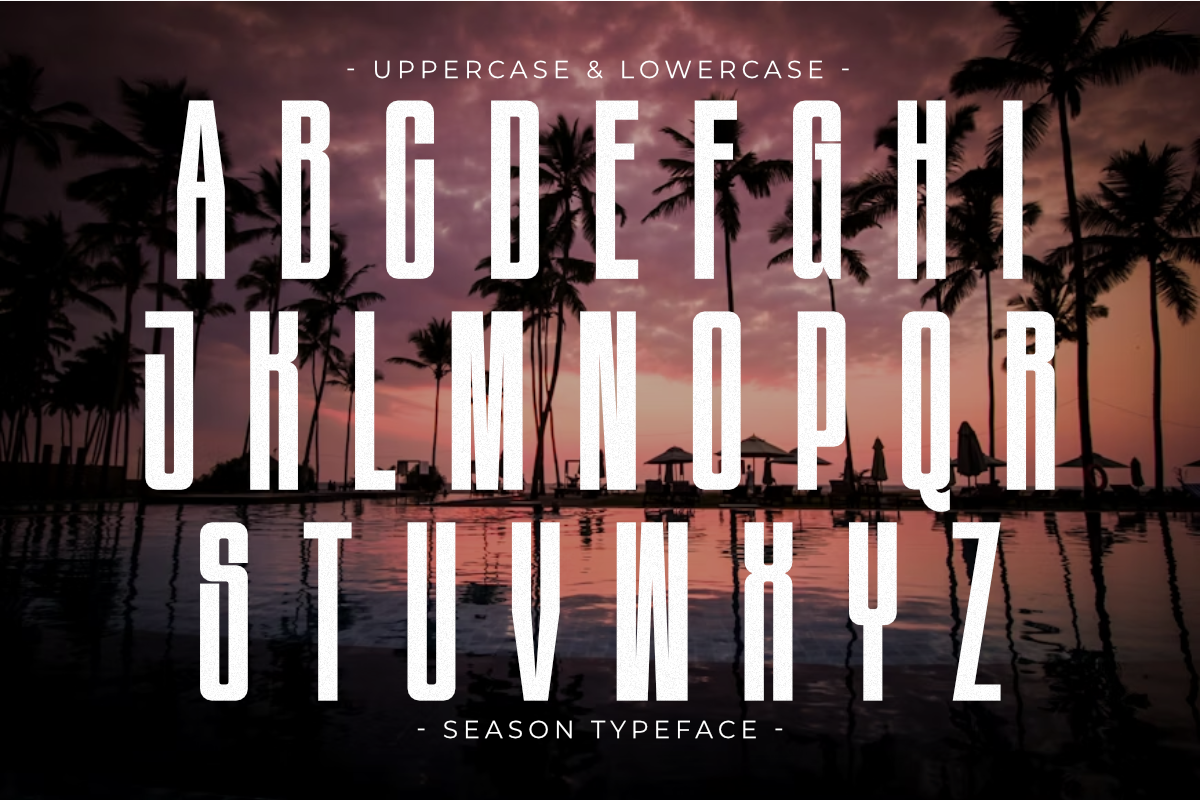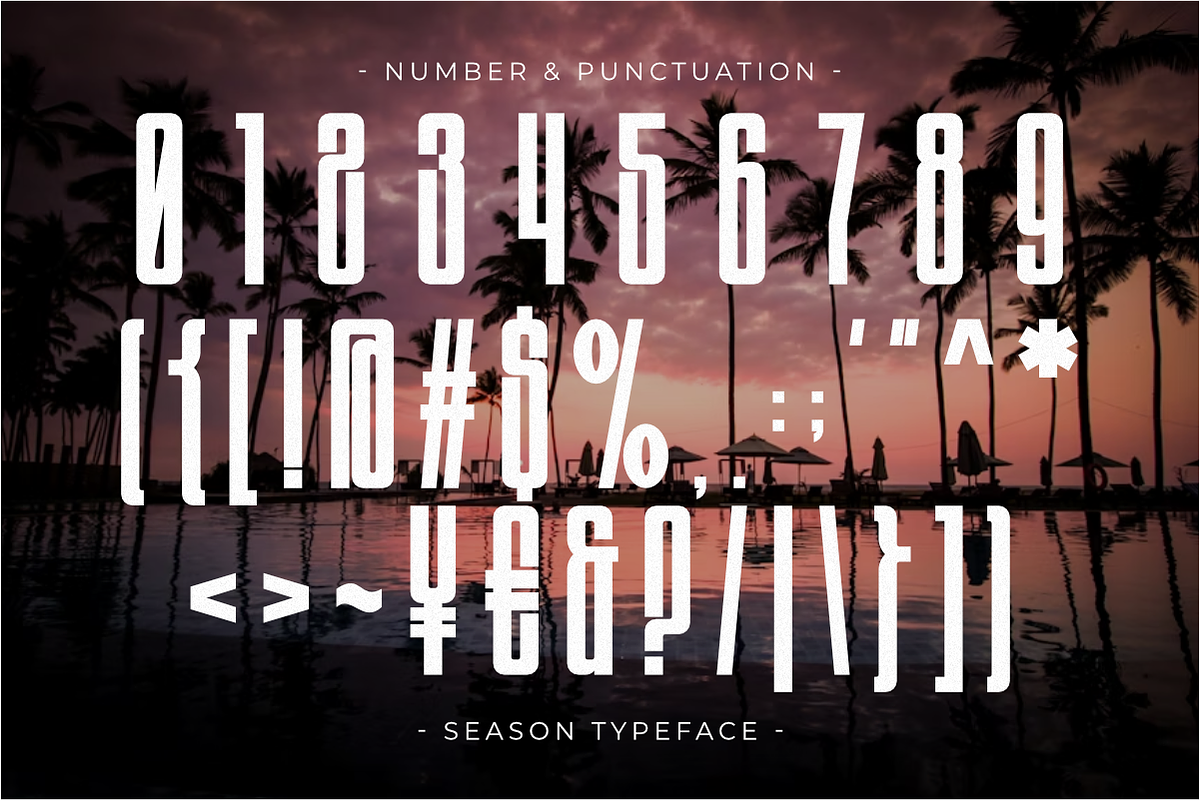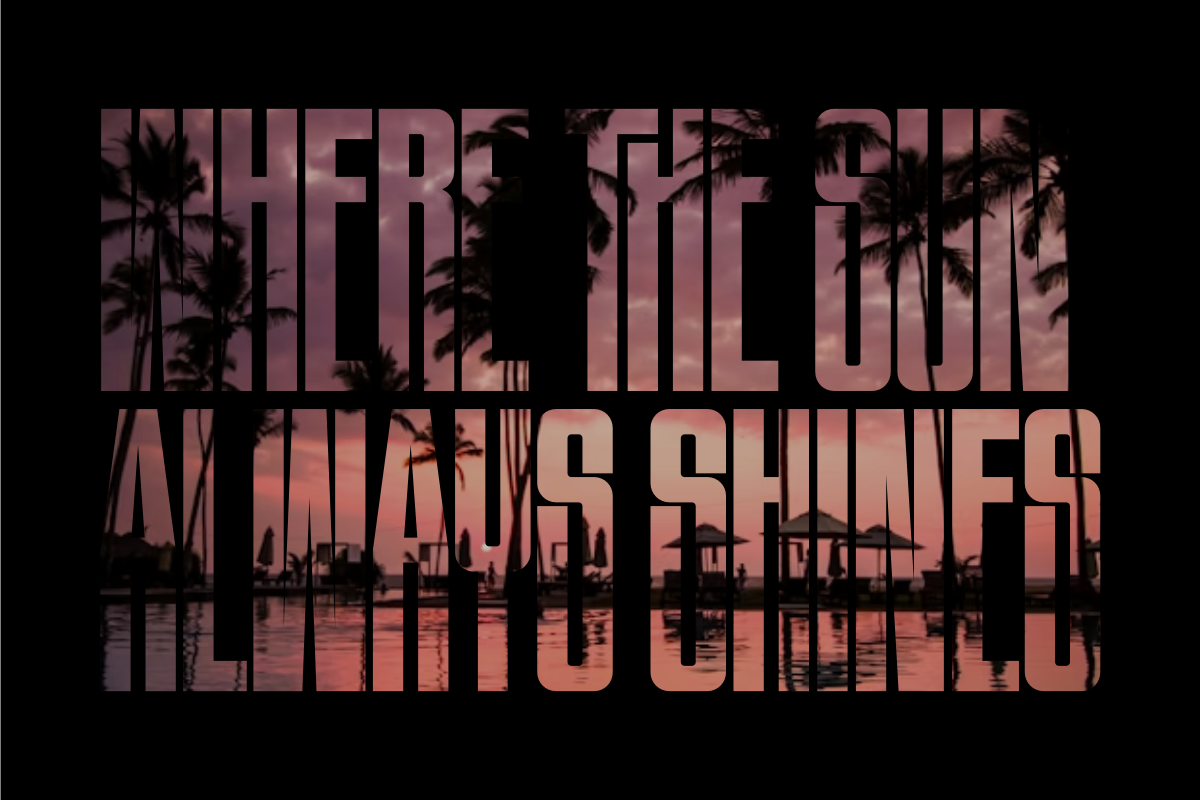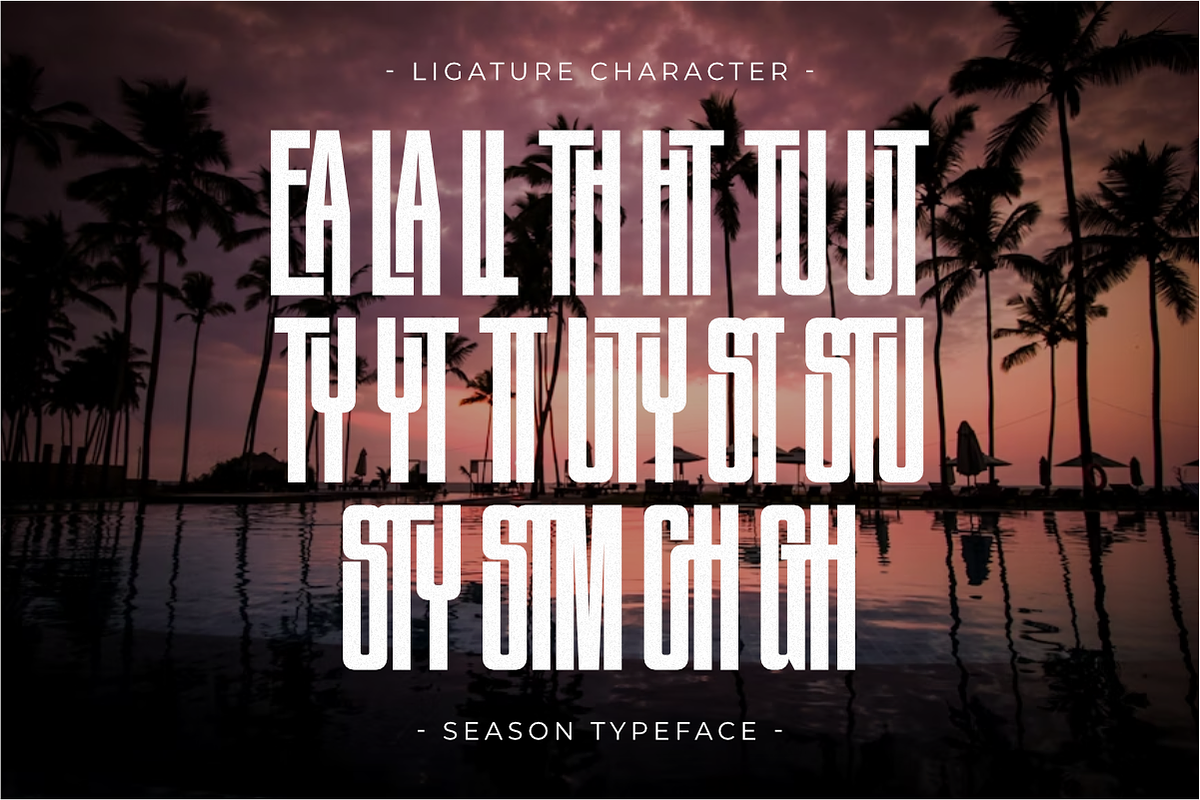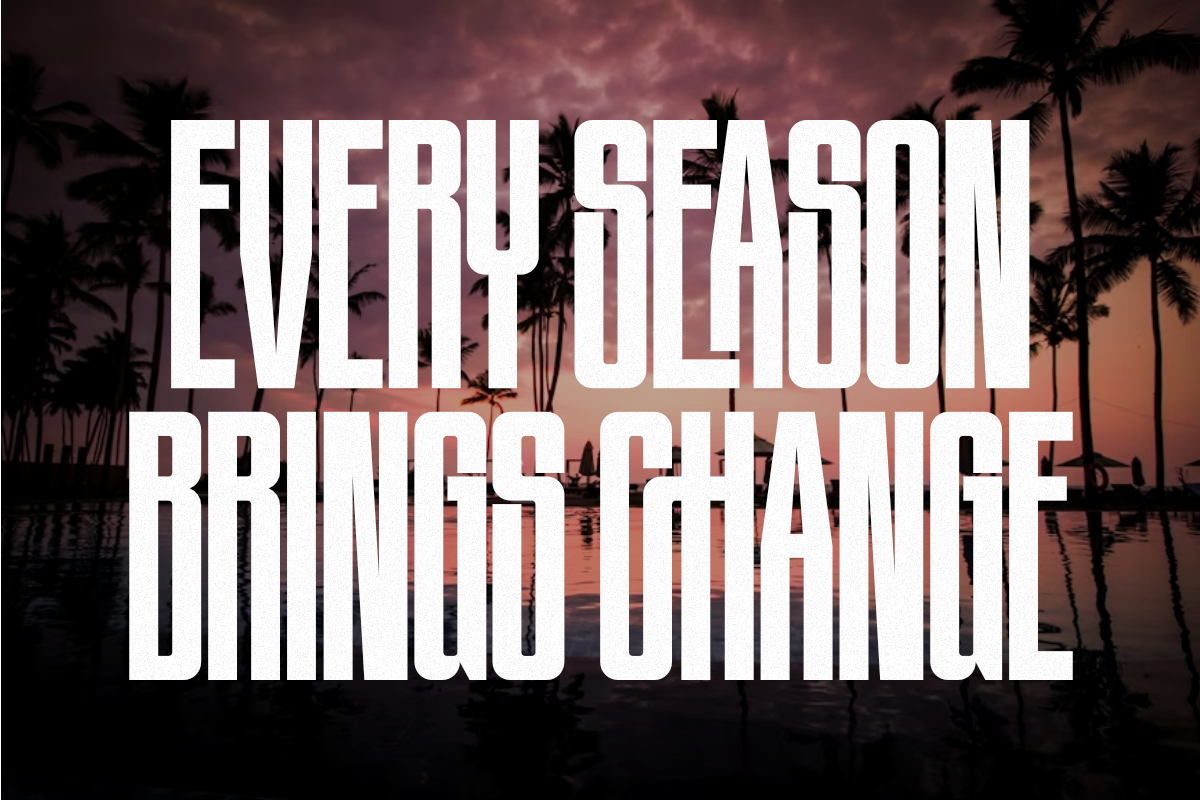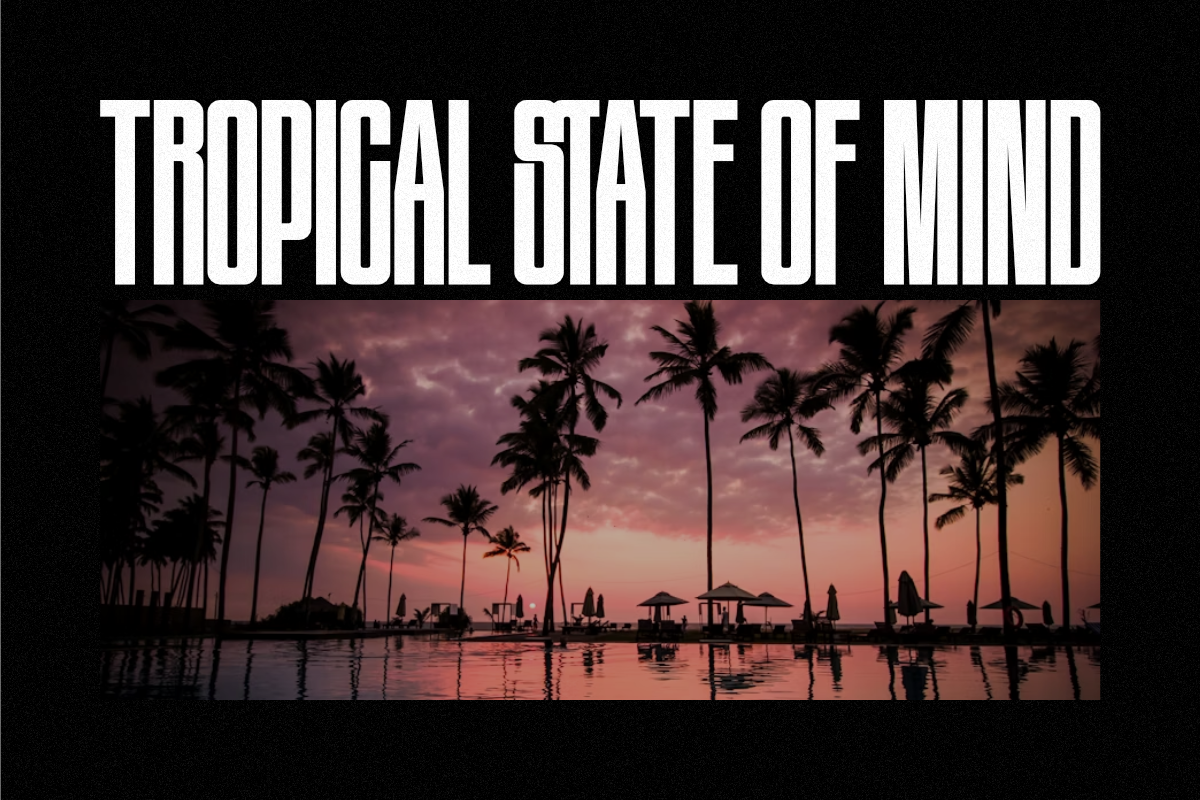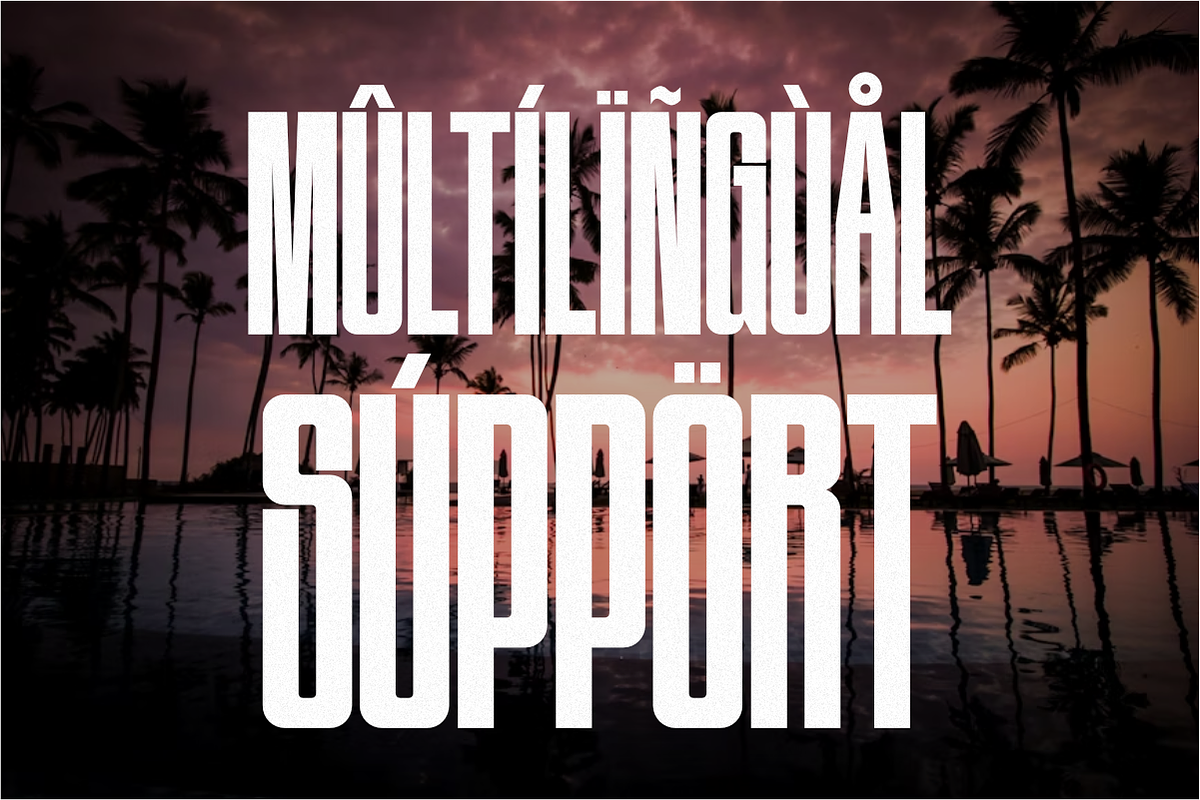
Season - Condensed Sans Serif
Season is a massive and impactful Condensed Sans Serif font, designed to deliver extreme visual presence with its ultra-bold, high-vertical structure. This clean, all-caps display typeface is perfect for high-fashion branding, sports apparel, monumental headlines, and striking music or event posters. Its thick, sturdy appearance is instantly recognizable, making it an essential modern typeface for projects that require a dominant, contemporary, and stylish visual identity.